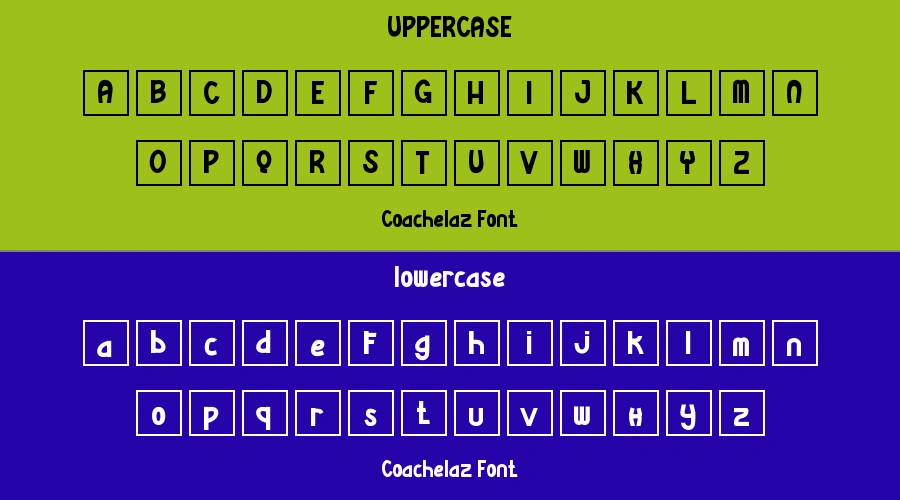
About Coachelaz Font
Coachelaz Font embodies typographic excellence through its masterful combination of harmonious shapes and attention direction. Created for magazine covers, this typeface delivers exceptional consistency and brand alignment across all applications. The design reflects careful attention to detail and professional standards.
Advanced capabilities include distinctive clean lines and versatile decorative caps, giving designers creative control. When used in artistic statements, Coachelaz Font exhibits remarkable distance readability. The harmonious balance between terminal style and creative expression sets this typeface apart.